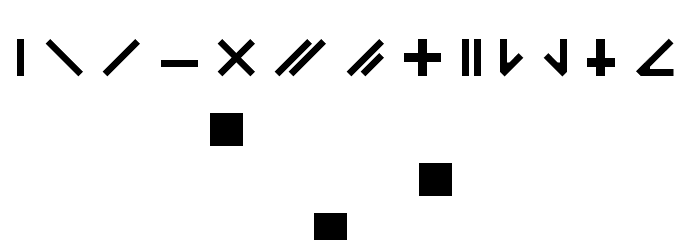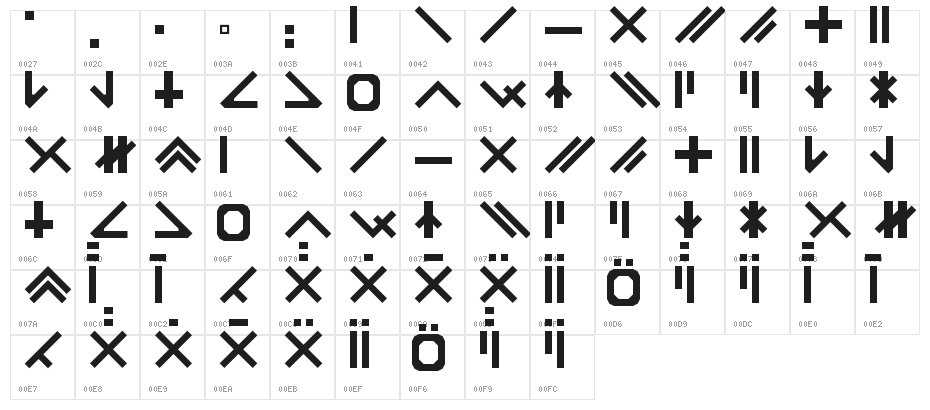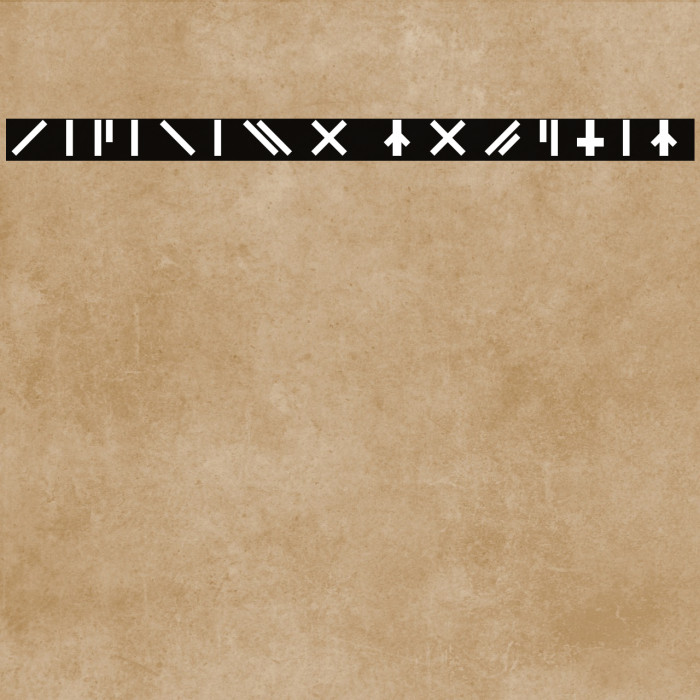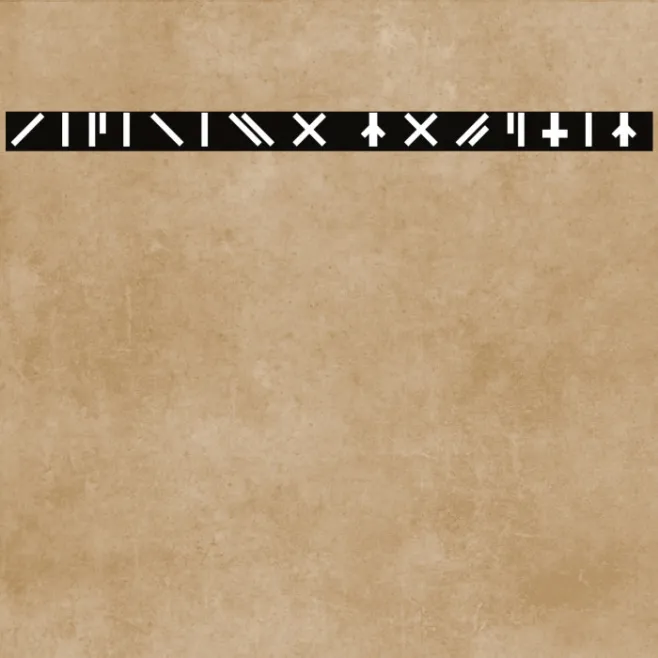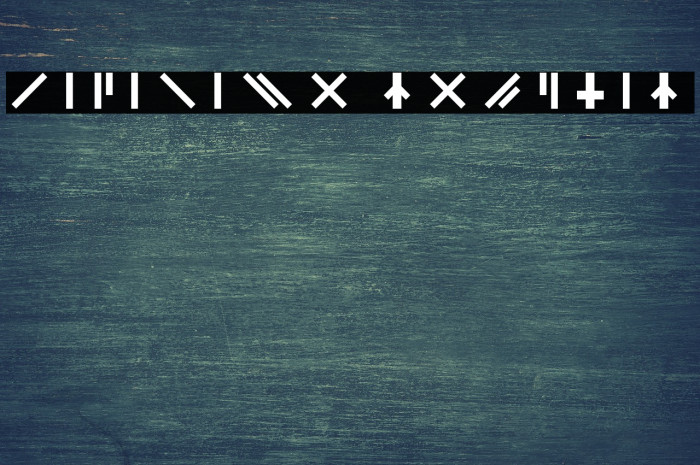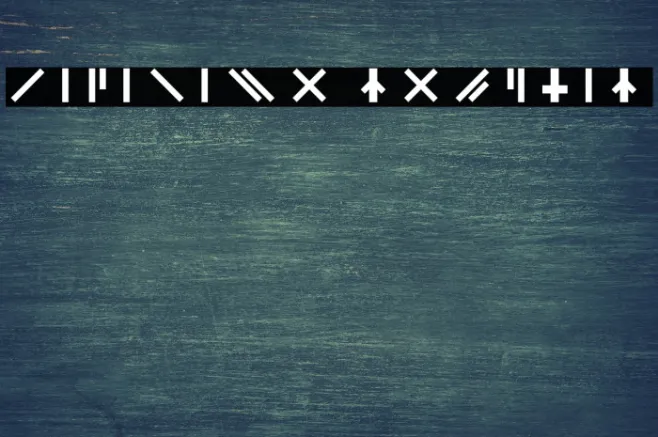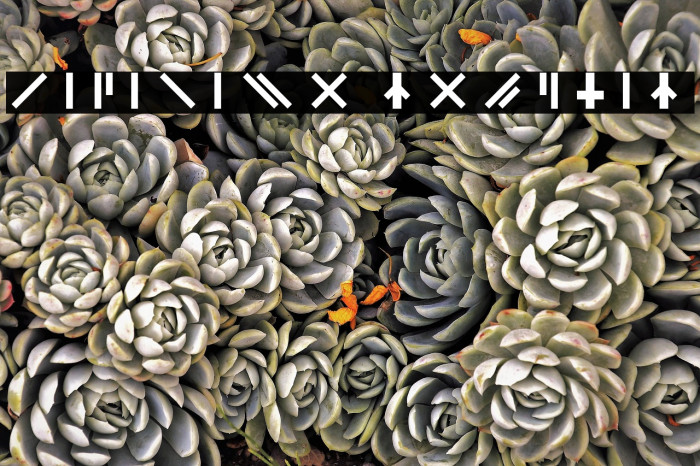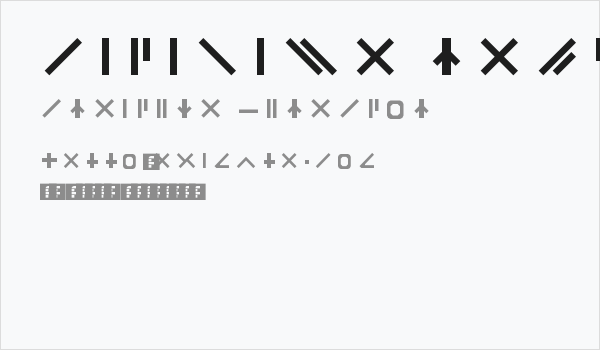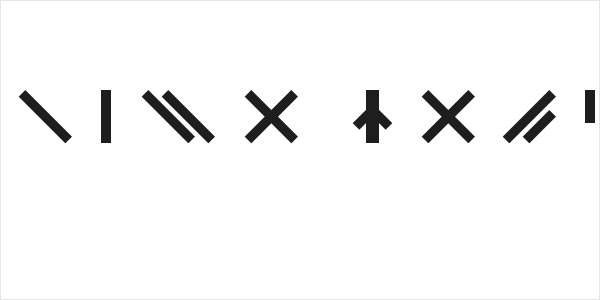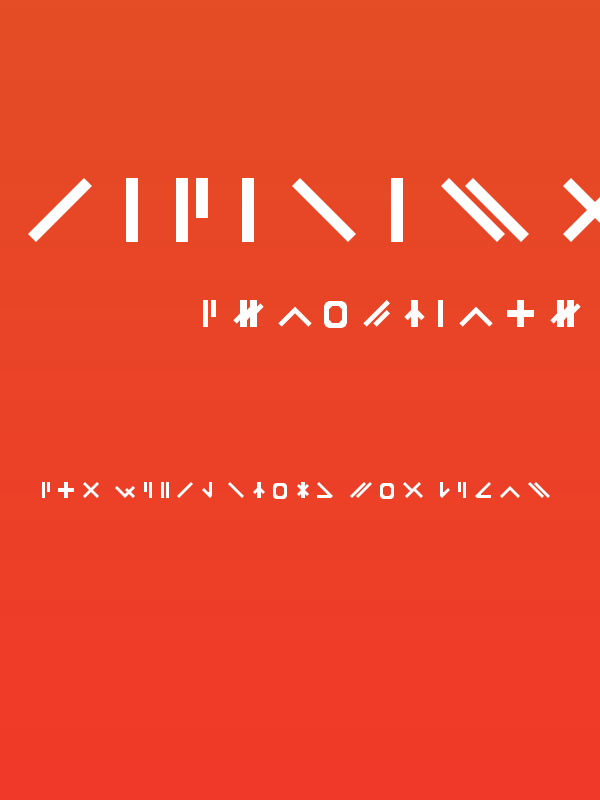
Catabase Regular Font
Catabase Regular Description
This font features a highly geometric and abstract design, characterized by sharp angles and straight lines. The characters are composed of simple shapes, such as lines and triangles, creating a futuristic and minimalist appearance. The font lacks traditional curves and serifs, opting instead for a more mechanical and structured look. This unique style gives it a distinct, modern aesthetic that stands out in digital and print media. The uniformity of the characters suggests a monospaced design, which can be particularly useful in coding environments or any context where alignment is crucial.
| Use Case | Logos, Headlines, Digital interfaces |
| Proposed Projects | Ideal for tech-related branding, modern art projects, digital interfaces, and coding environments. |